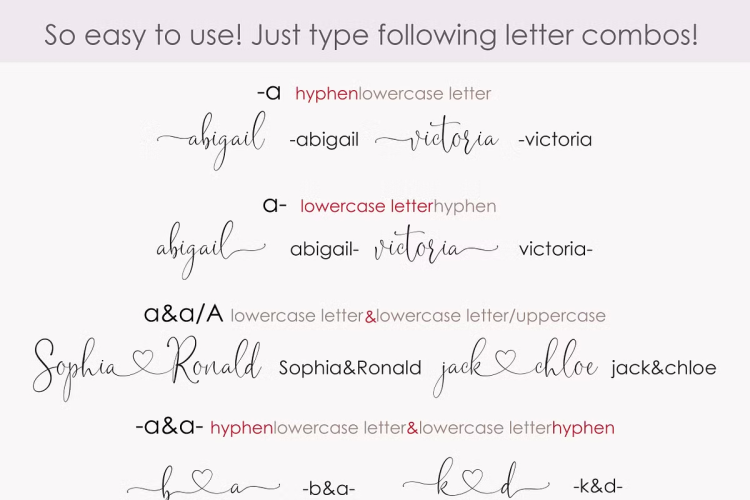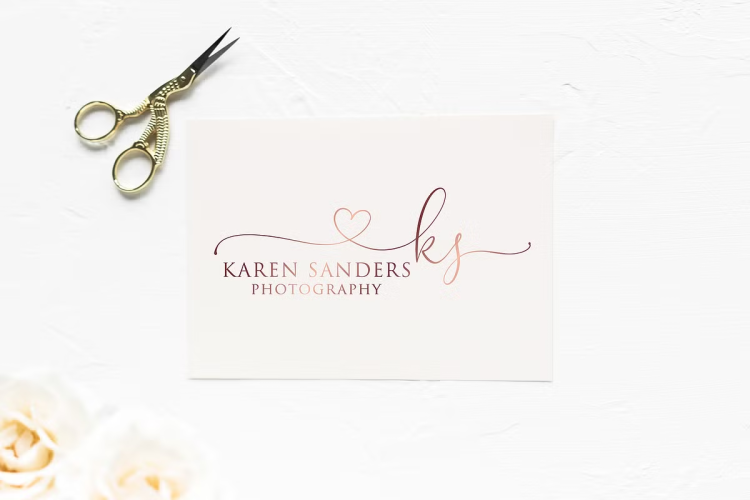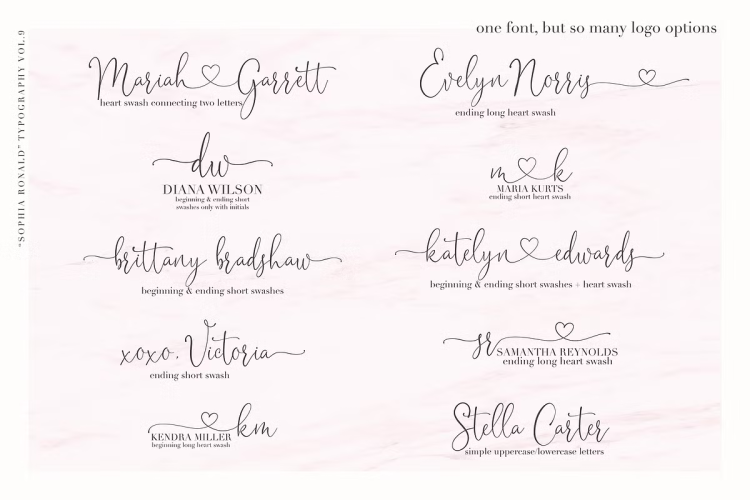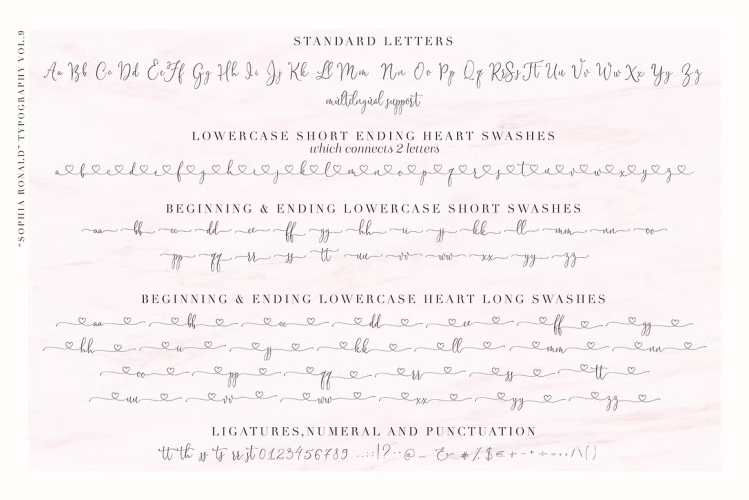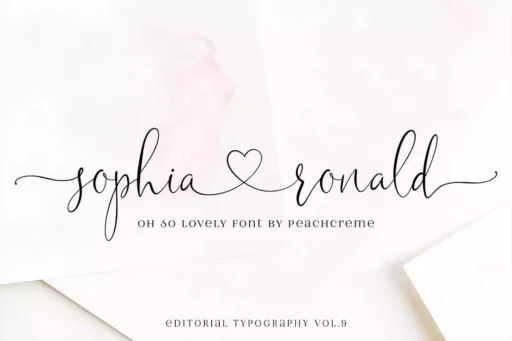
Sophia Ronald Font
Sophia Ronald is an elegant modern calligraphy font by PeachCreme and it includes some pretty handwritten strokes. Decorated with hearts and symbols it can be used for branding, wedding designs, invitation cards and other designs.
This font has a delightful uppercase and lowercase alphabets, multilingual characters, numerals, punctuation and ligatures. It also includes:
Brief lower case initial and final swashes and the example of short name of the font such as LF Joe.
Lower case heart swashes at the end of words or letters, connecting the two—good for invitations and monograms.
Long lower case initials and finals in the shape of hearts.
Sophia Ronald is suitable for all kinds of printing methods due to its silk like texture such as embroidery, laser cutting, and gold foil.
Where Sophia Ronald Font works best
Sophia Ronald Font brings a personal, handwritten warmth to invitations, menus and place cards.
Craft brands — coffee, cosmetics, bakery — use scripts like Sophia Ronald Font for signature-style logos and labels.
Pair Sophia Ronald Font with a plain sans for quotes, stories and Pinterest pins that feel handmade.
Sophia Ronald Font is a Script And Handwritten typeface tagged Branding, Calligraphy, Elegant, Handwritten. It works well for headlines, logos, posters, social media graphics and branding projects that need a distinctive script and handwritten look.